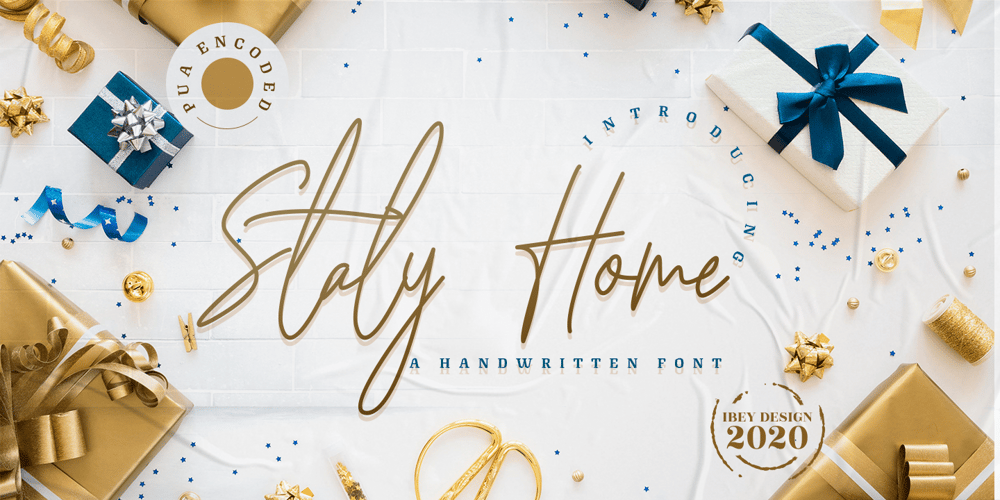
Staly Home Font Family was designed by Ikrar Bey Khubaib and published by IbeyDesign. Staly Home contains 1 styles and family package options. Staly Home Handwritten Script Font is an exquisite handwritten font, masterfully designed to become a true favorite. It maintains its classy calligraphic influences while feeling contemporary and fresh. Fall in love with Stay Home and bring your projects to the highest levels.